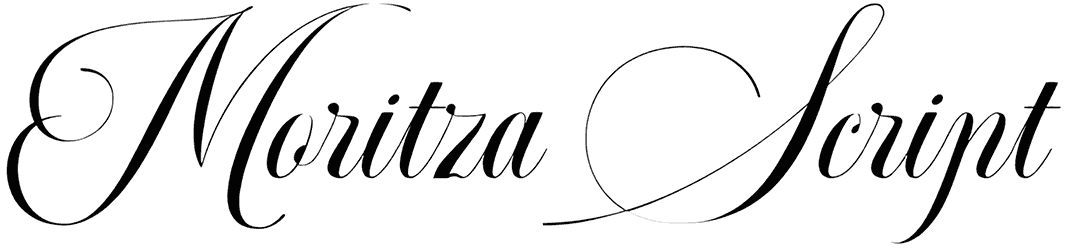
Moritza Script Font
Moritza Script alone can be enough to glorify your content and create credibility for your brand. This calligraphy font has elongated lines with appropriate thicknesses that enhance its readability but give it a valuable and rich look, and can transfer this inner credibility to any present writings.
With this funeral font, you can create a sense of history and fantasy in your texts, which will be very suitable for increasing the attractiveness of posters, greeting cards, invitations, and packaging.